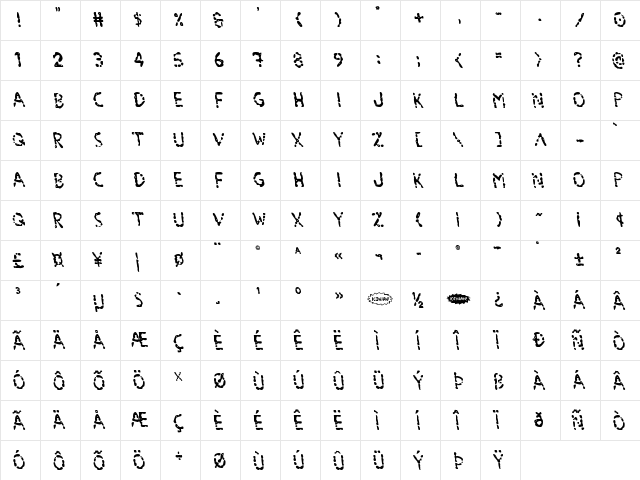
Blood Drenched Semi-Leftalic Regular
Design Context for Blood Drenched Semi-Leftalic Typeface
Blood Drenched Semi-Leftalic carries an unsettling edge — its distorted letterforms are built to unsettle, perfectly suited to horror, Halloween, and dark creative work. The dynamic lean of this cut emphasises speed and emphasis in any layout.
Perfect for anything that needs to unsettle — game titles, horror branding, and macabre invitations.
Font Pairing: Pair with a clean neutral sans-serif for body copy to let Blood Drenched Semi-Leftalic's character lead without overwhelming the composition.
Pro Tip: Use Blood Drenched Semi-Leftalic at larger display sizes for maximum impact. Consider generous tracking to let the disturbing character of each letterform breathe.